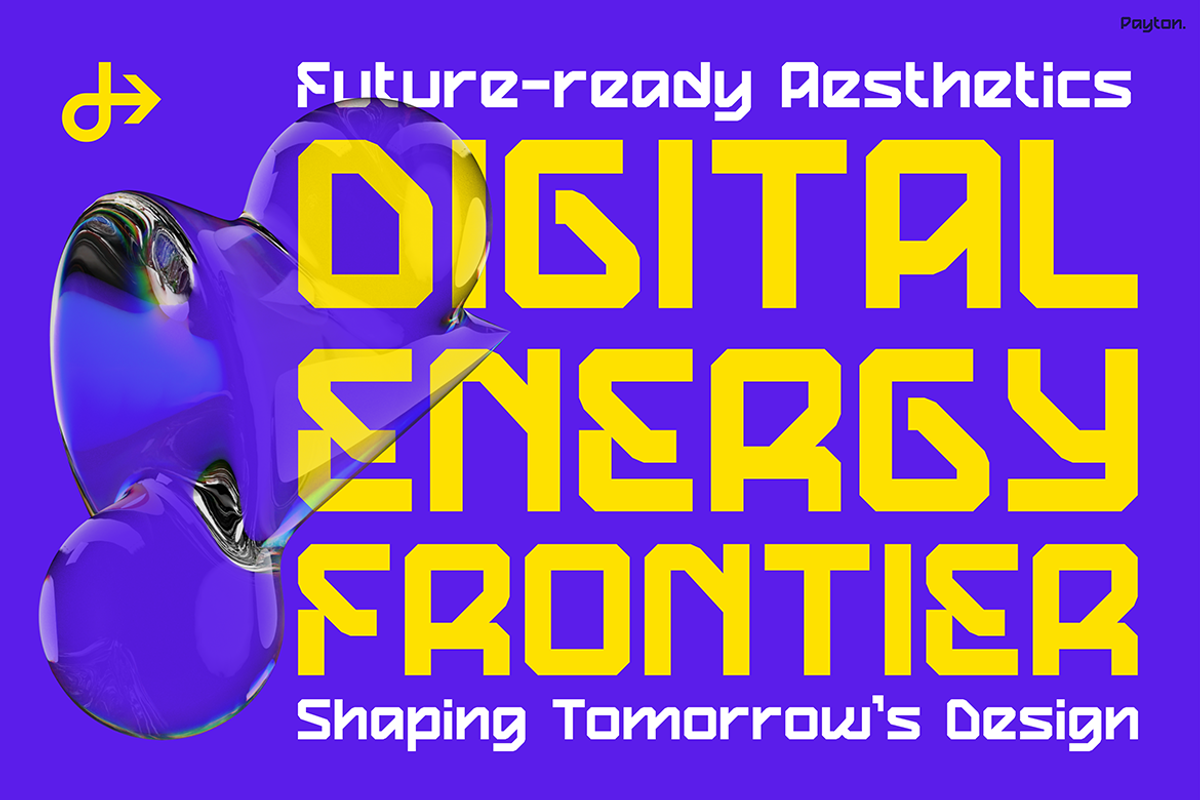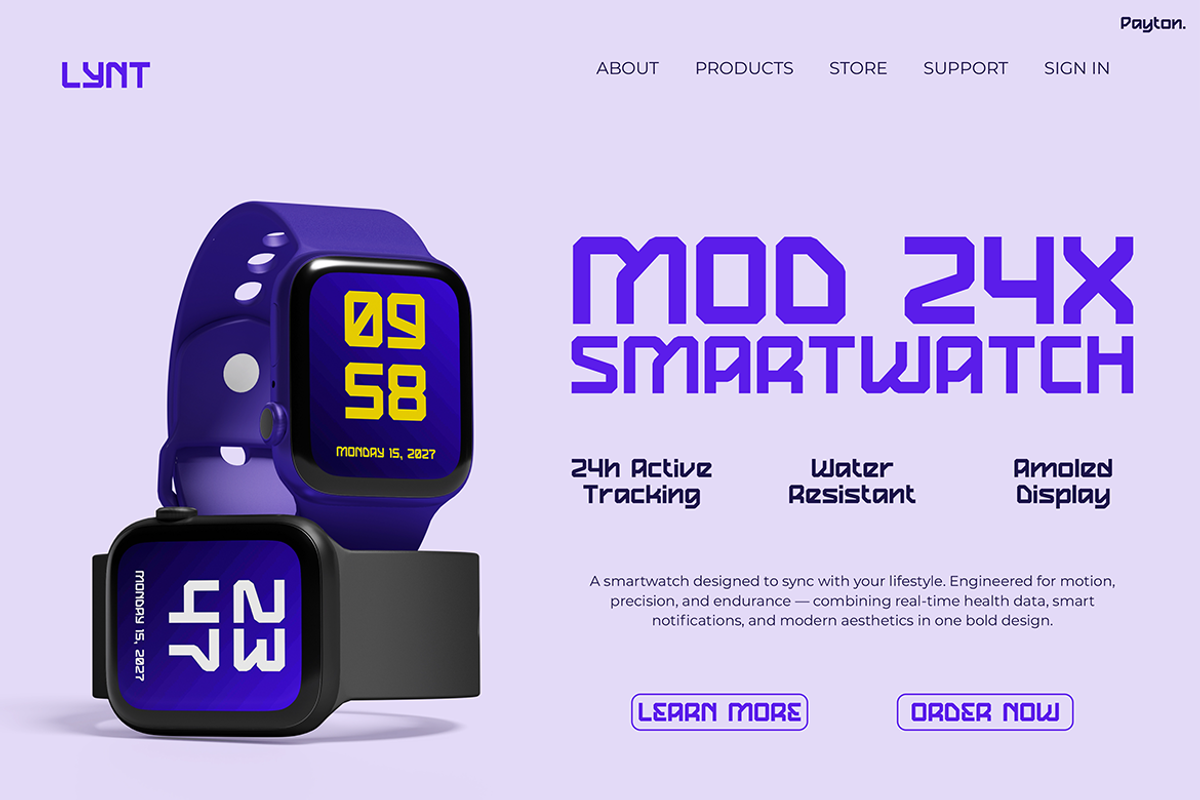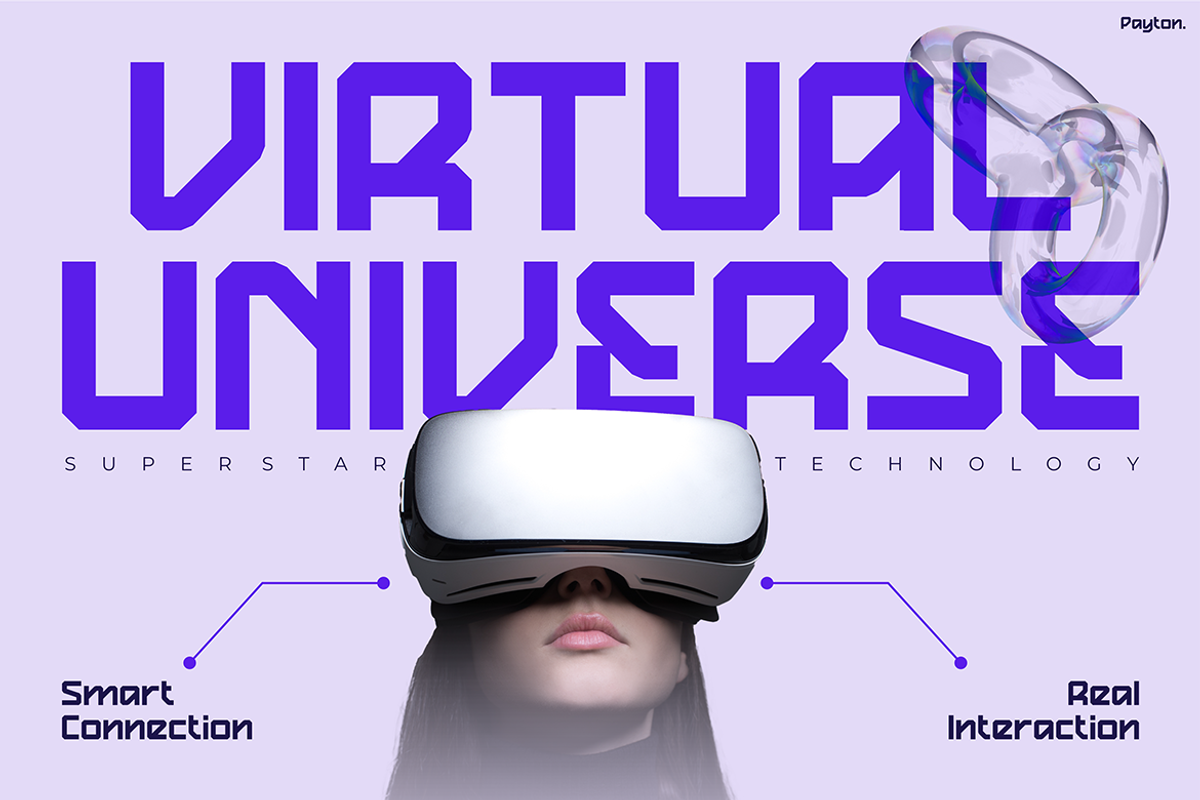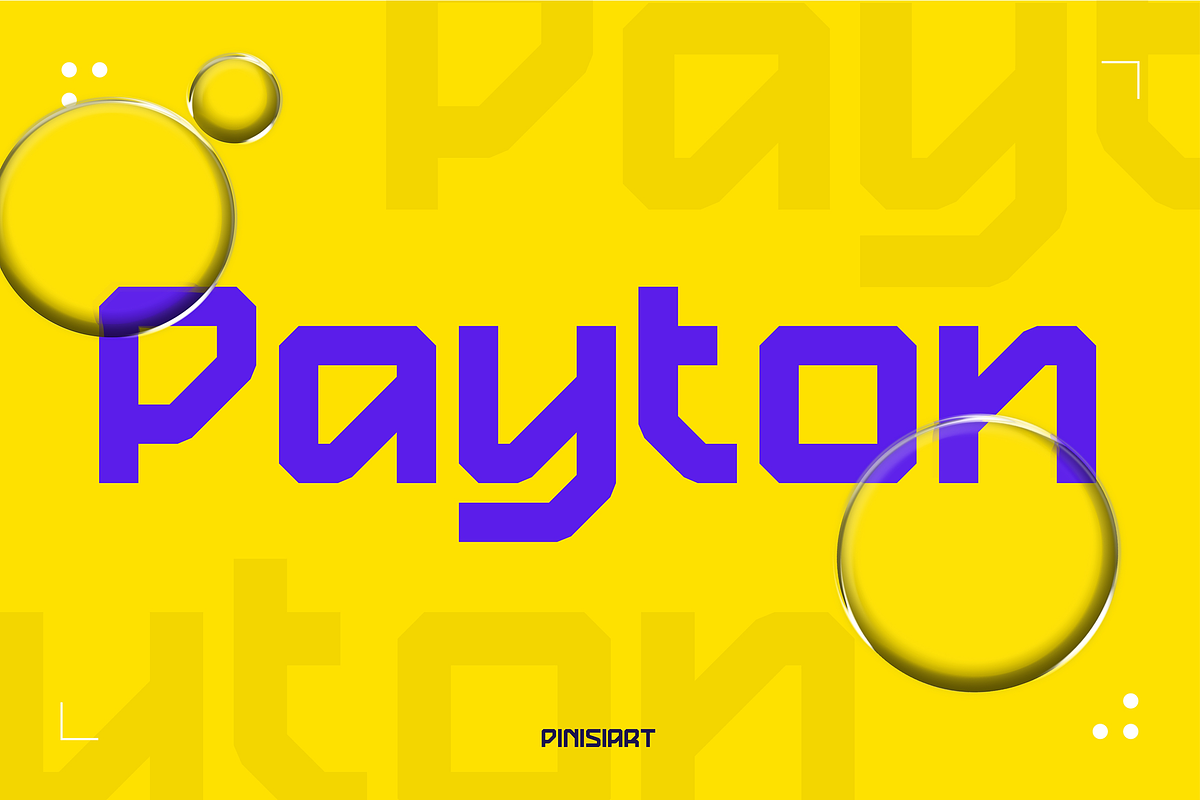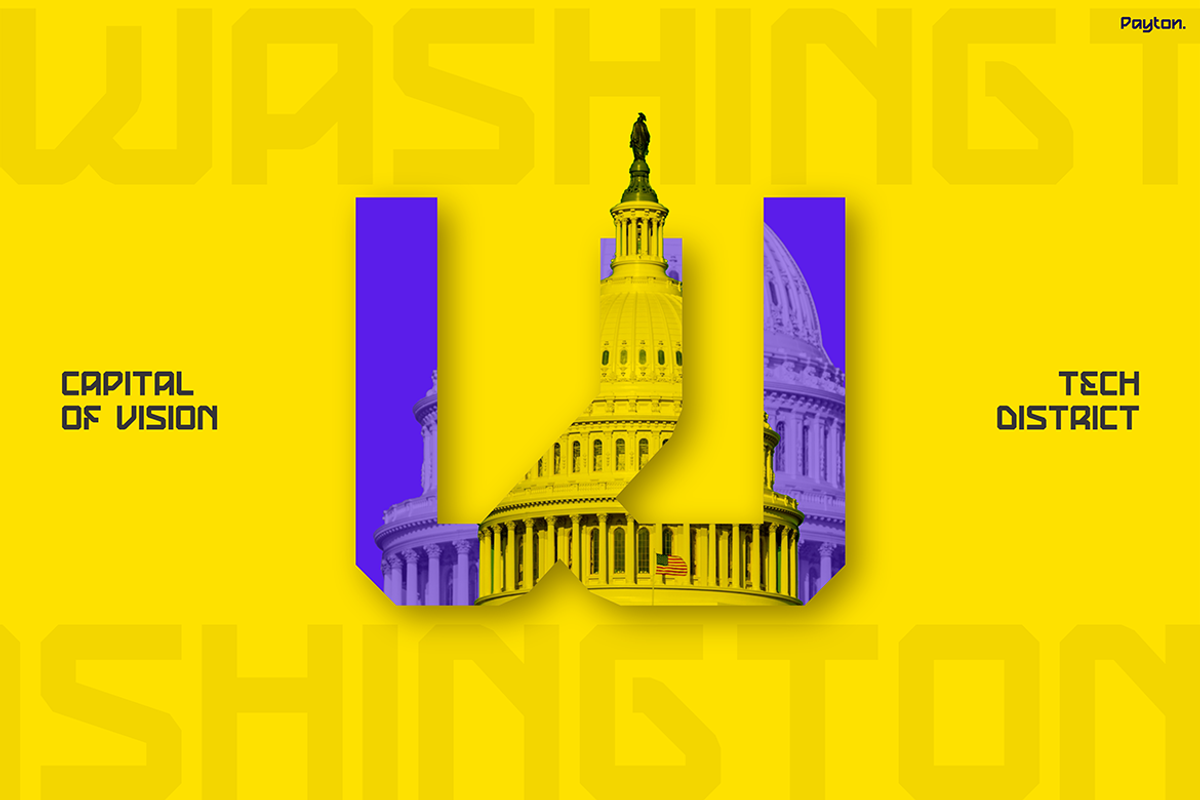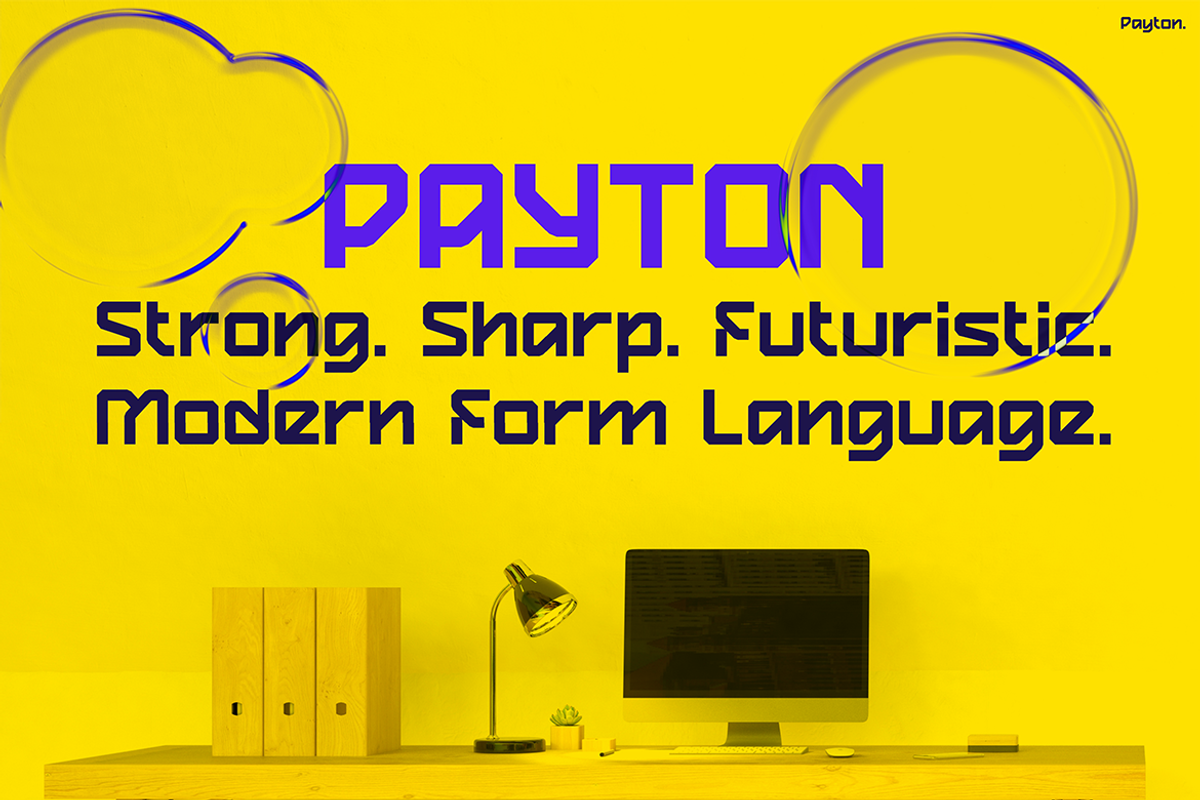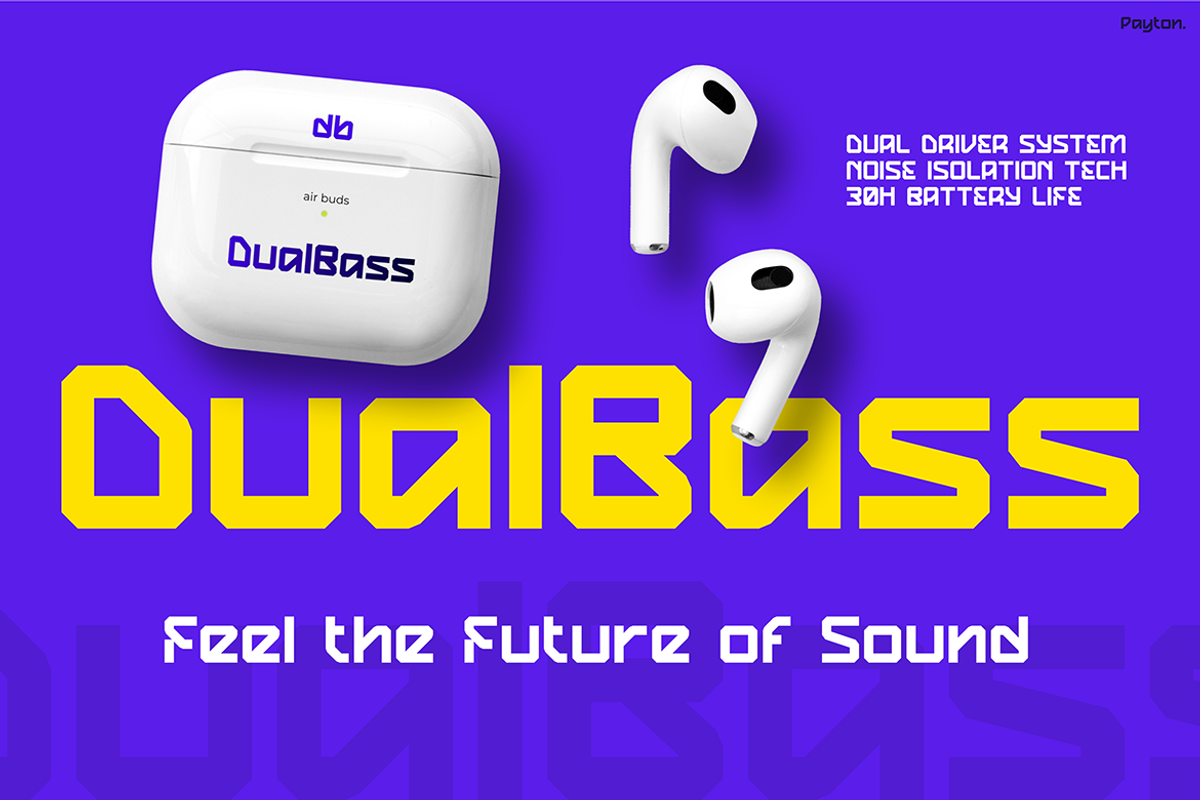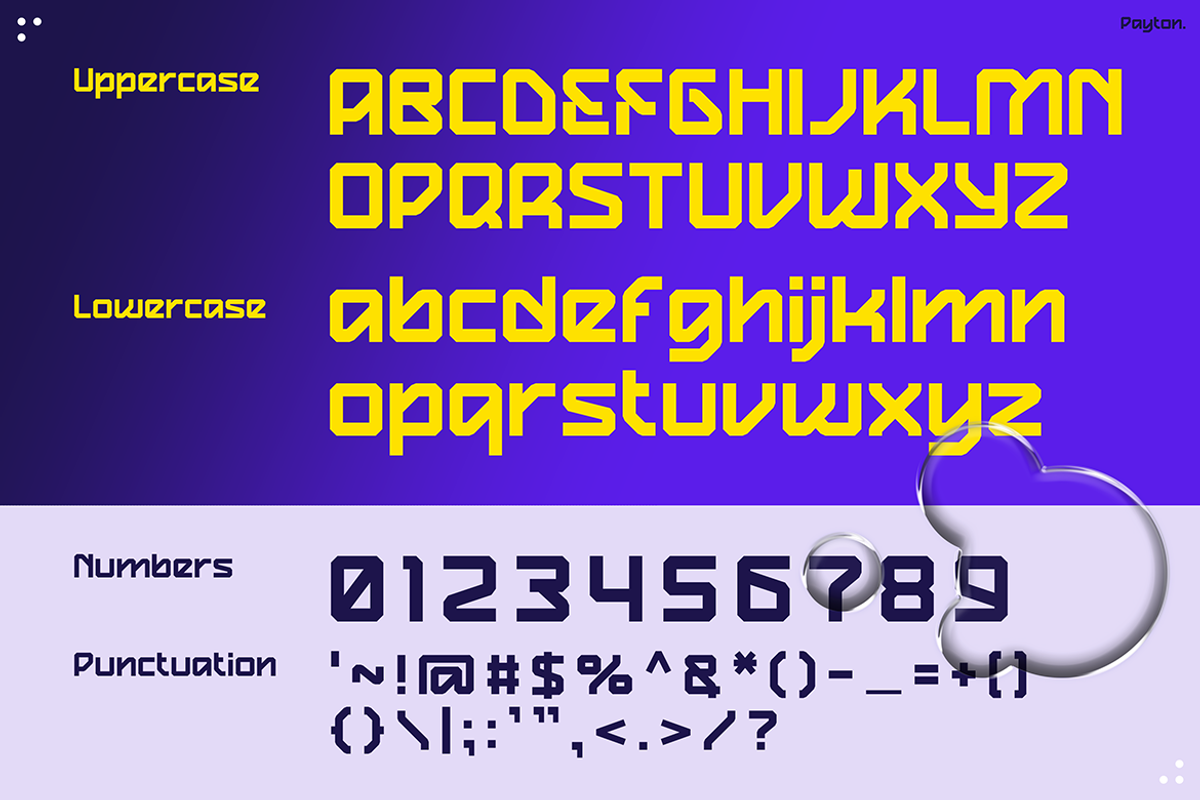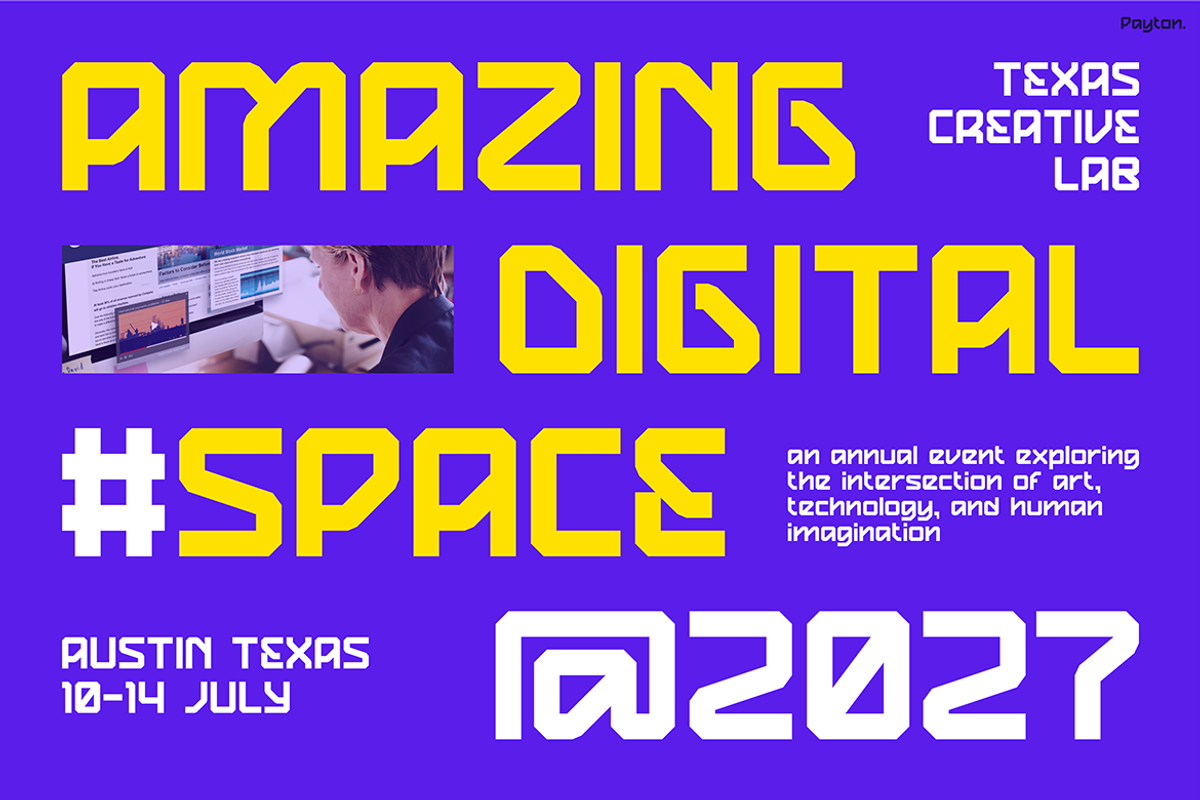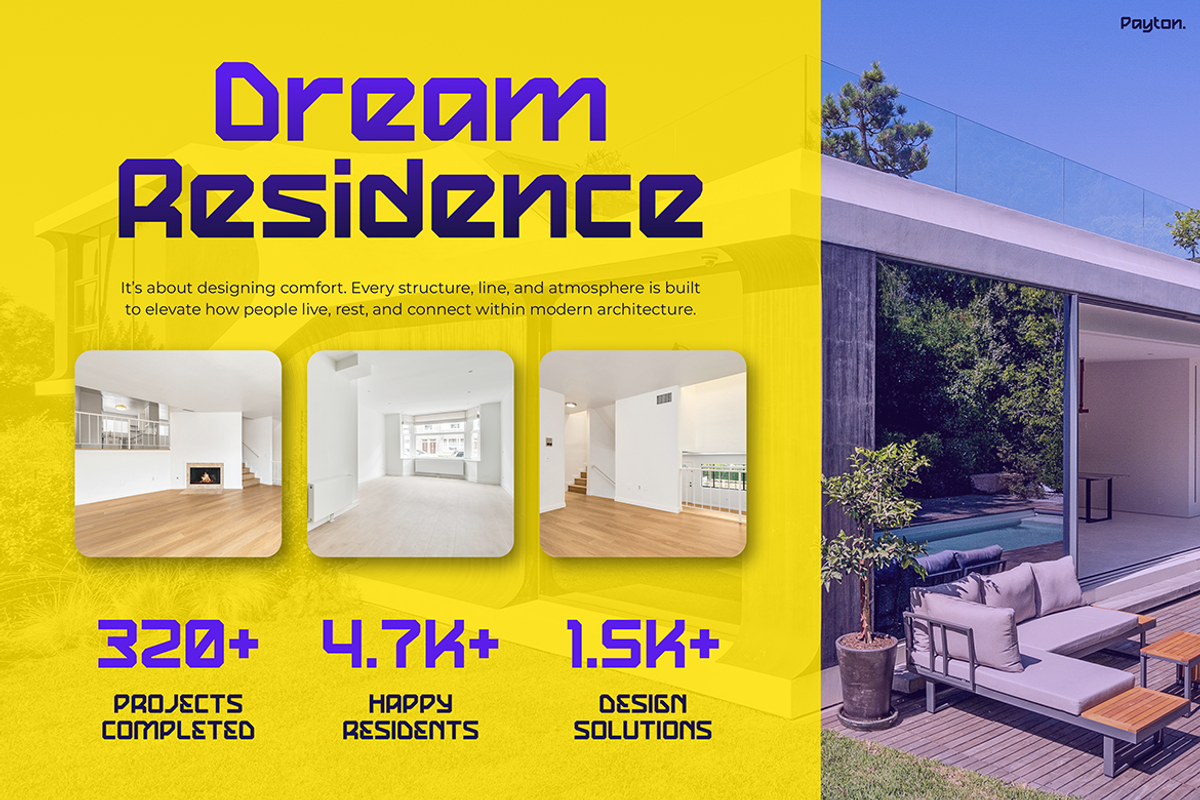
Payton
Instagram Font Payton: Where Modern Precision Meets Futuristic Energy
Instagram Font Payton is more than just typography — it’s a bold expression of futuristic creativity. With its strong, sharp, and geometric letterforms, this font instantly captures the spirit of innovation and digital sophistication. Moreover, the contrast between clean straight lines and rounded corners creates a look that is both sleek and approachable, perfectly merging modern aesthetics with high-tech energy.
Every curve and corner feels intentional, reflecting a design language inspired by the digital revolution — from smart tech and VR interfaces to minimalist architecture and cyber-inspired branding. Therefore, Payton is not only visually powerful but also emotionally compelling. It conveys a sense of movement, progress, and confidence, which makes it ideal for projects that aim to represent the future. Furthermore, whether you’re designing bold posters, eye-catching social media visuals, or cutting-edge app interfaces, Payton ensures your message stands out with futuristic charm and precision.